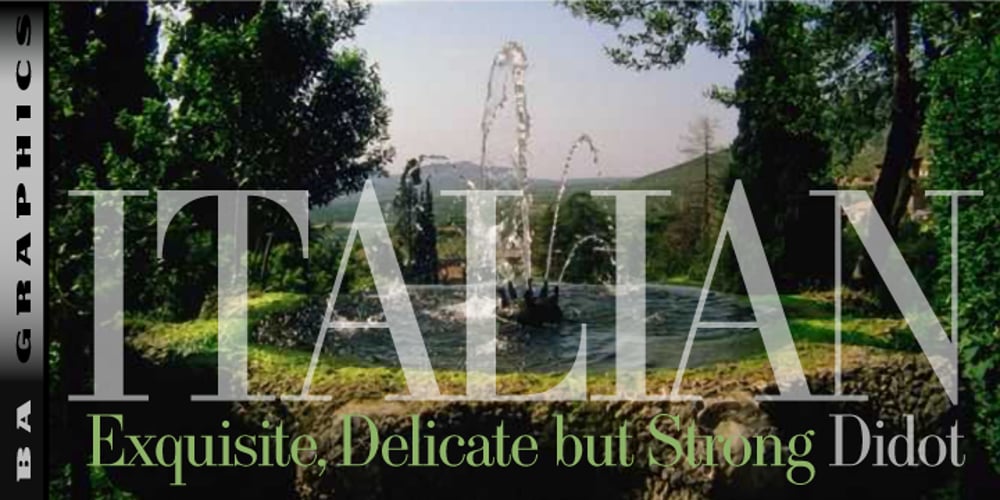
Italian Didot Font Family was designed by Bob Alonso and published by BA Graphics. Italian Didot contains 1 styles and family package options. Exquisite design, delicate but yet strong enough to make a statement just right for that special occasion.